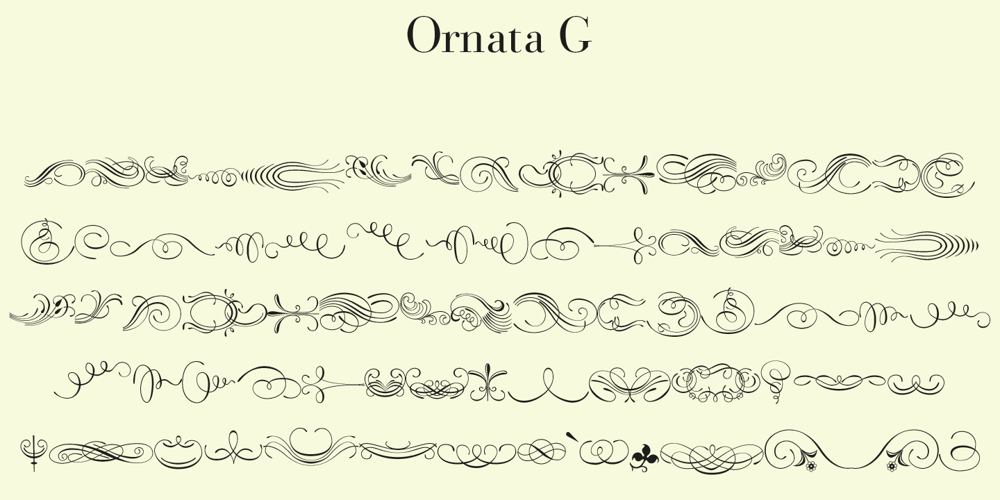
Ornata G Font Family was designed by Gert Wiescher and published by Wiescher Design. Ornata G contains 1 styles and family package options. Ornata G is the seventh of a series of old ornaments that I am trying to save from oblivion. I am completely redesigning the ornaments from scratch. These ornaments have been designed around 1890, I think by someone at the Enschede foundry in Holland. These have a lot of nice swings. Your digitizing type-designing savior, Gert Wiescher